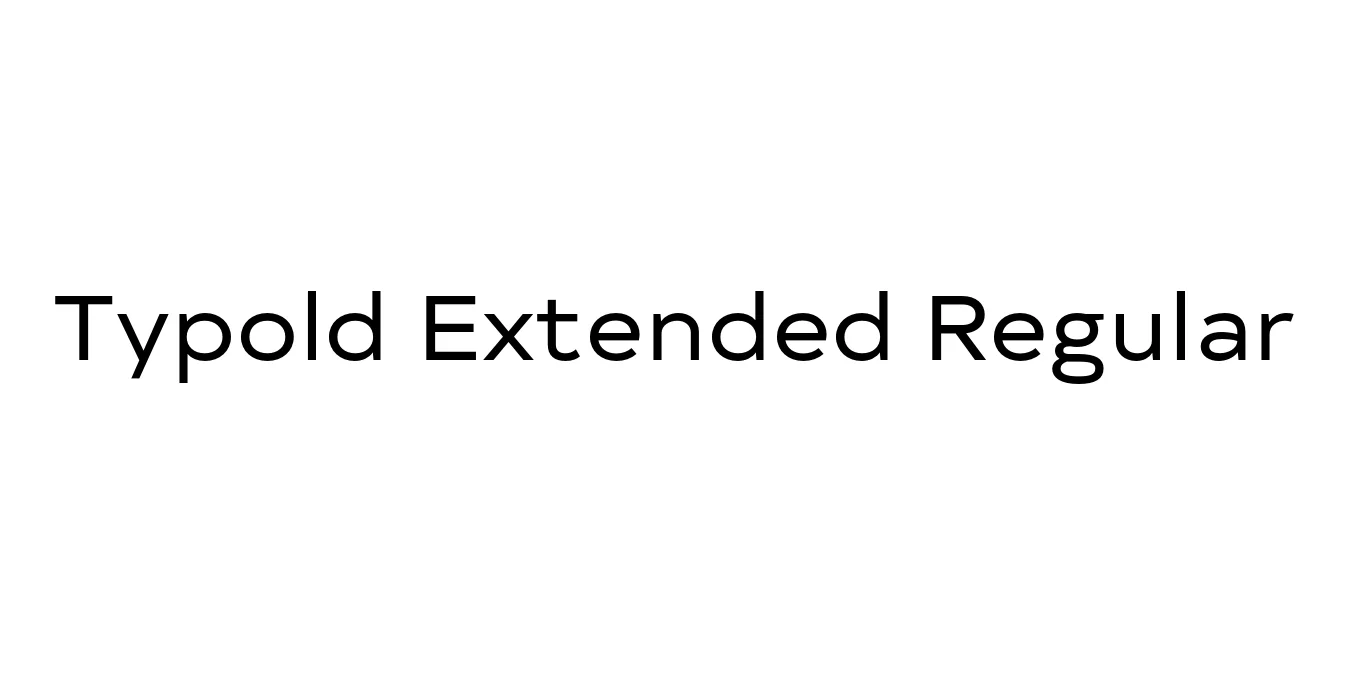
Typold Extended Regular
Designed by Jonathan Hill
Typold Extended Regular is a sophisticated geometric sans-serif typeface designed by Jonathan Hill for the UK-based foundry, The Northern Block. As part of the expansive Typold superfamily, this extended version emphasizes horizontal space and cinematic presence. It is built upon a foundation of mathematical precision and clean, circular forms that provide a sense of modern engineering and structural integrity.
The font is particularly effective for high-end corporate identities and technical applications where a feeling of stability and advancement is required. Its wide stance ensures that headlines remain legible and striking even from a distance, making it a favorite for architectural signage, editorial headers, and minimalist digital interfaces that prioritize clarity and futuristic aesthetics.
Typold Extended Regular Best Uses
Perfect for creating wide, stable logos for technology and construction companies.
Ideal for high-impact hero sections and bold website headers.
Excellent for title sequences and expansive layout headings in magazines.
Provides superior legibility for modern wayfinding and building identification.